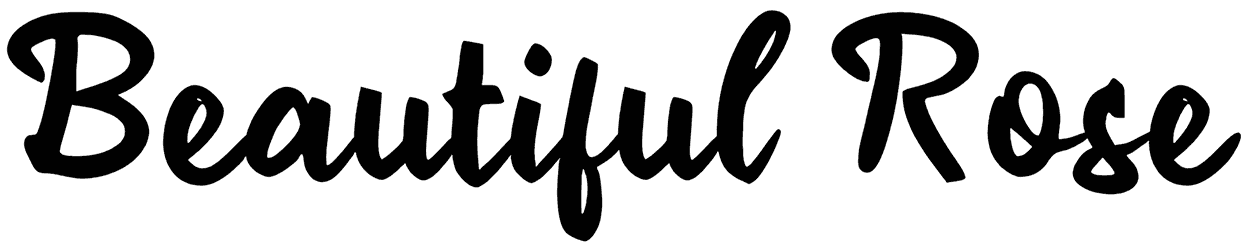
b Beautiful Rose Font
You can easily demonstrate your creative talent and cement your credentials as a professional artist by utilizing a lovely script font similar as b Beautiful Rose that carries a sense of tenderness, sincerity, and dreaminess.